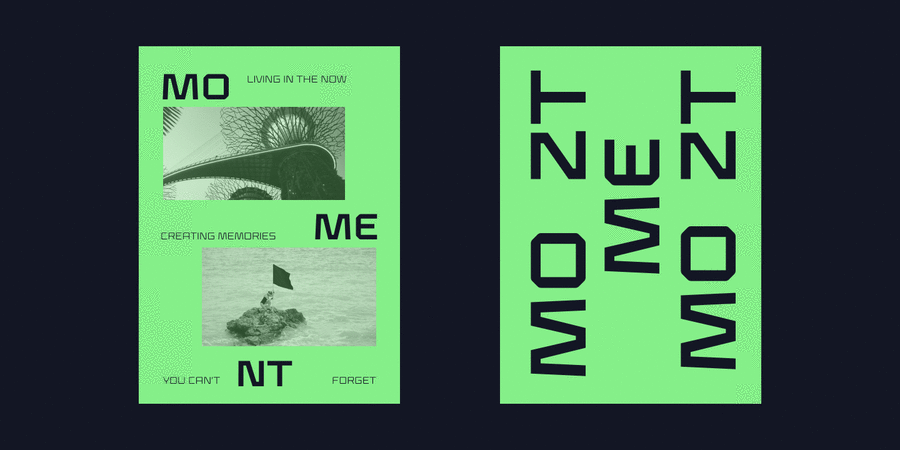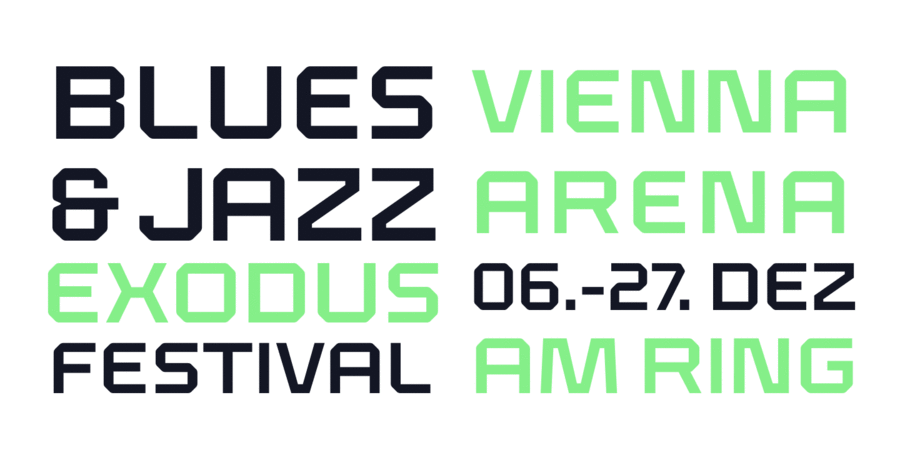
About KlaptKlapt is a geometric sans serif family that is soft on the outside and sharp on the inside. This family of four weights, includes an extended character set supporting most Latin languages even Vietnamese! Klapt, which can be bold or very elegant, is well suited for designs ranging from branding and corporate identity to editorial design and also web design. It is great for display purposes especially for headlines, posters, magazines, book covers, logos... you name it! Feel free to share your designs using Klapt or just get in touch via email to hi@seventype.com. The typeface was designed by Vitória Neves in 2019.
Associations for font family KlaptTypeface personality and character:
flat, square, accurate, logical, cold, automatic, technogenic, solid, static, cutting, crisp, stable, thin, easy, rectangular, urban, modern, machine, sharp, engineering, urbanistic, schematic, glass, fragile, futuristic, wire, simple, reliable, self-assured, steel, space, indifferent, faceted, chopped, convincing, serious, strong, industrial, iron, manly, military, army, railway, game, sportive, workman, cinematic
constructor, scheme, architecture, engineer, automation, urban studies, science, design, city, statistics, gadget, electronics, technology, sci-fi, space, tool, robot, game, device, IT specialist, IT, android, hardware, coworking, x-ray, astronomy, car, industry, war, army, weapons, factory, metallurgy, machine tool, packing, stock, port, box, ammunition, equipment, repairs, depot, helmet, uniform, railway carriage, aviation, aircraft, machine, Shooter, action, transport, airsoft, footwear, railway, cubes, lego, computer game, sport, mechanical engineering, security, protection, fuel, police, construction, building, brick, bus, workman, cinema, cybersport Typeface associated with age: